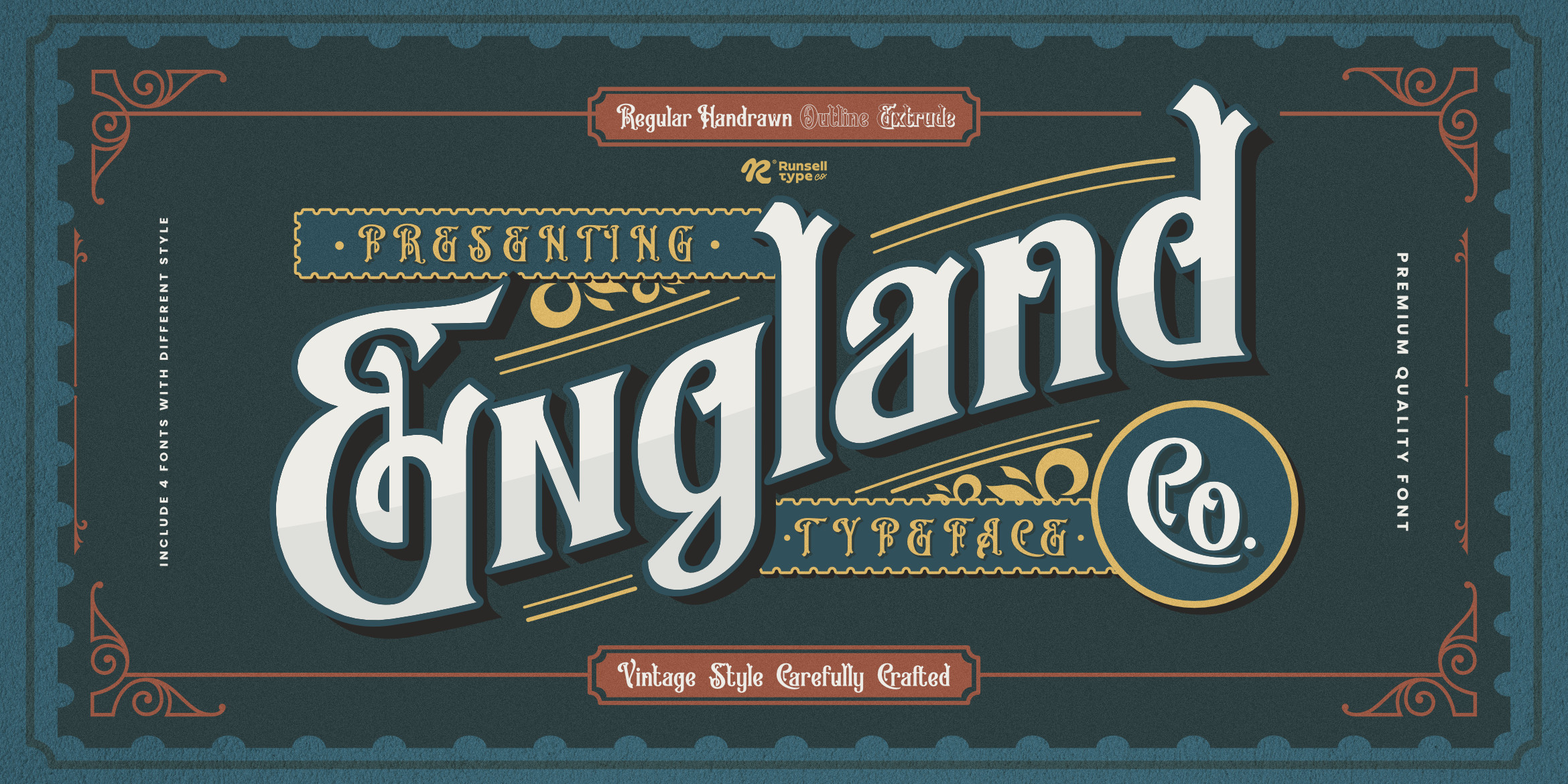
England Co Font is ideal for classic branding, premium packaging, elegant invitations, editorial layouts, luxury websites, and vintage-inspired logos. It perfectly captures the timeless spirit of British design heritage with a modern twist.
What makes England Co Font so exciting is its refined serif details and balanced proportions, which provide a perfect blend of tradition and sophistication. Each letter conveys a sense of heritage while maintaining readability and style.
The font family typically includes Regular, Italic, Bold, and Bold Italic styles, giving designers flexibility to create strong visual hierarchies and dynamic typographic compositions.
If you’re looking to add a touch of British class and enduring elegance to your projects, England Co Font Free Download is an excellent choice. Use it to elevate your design with a dignified and polished look.